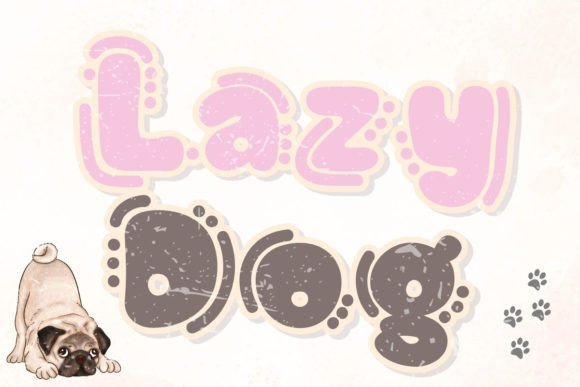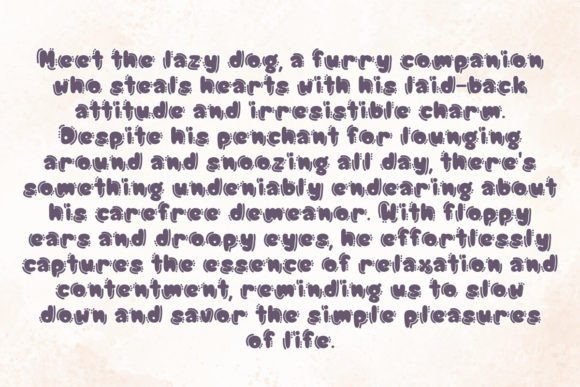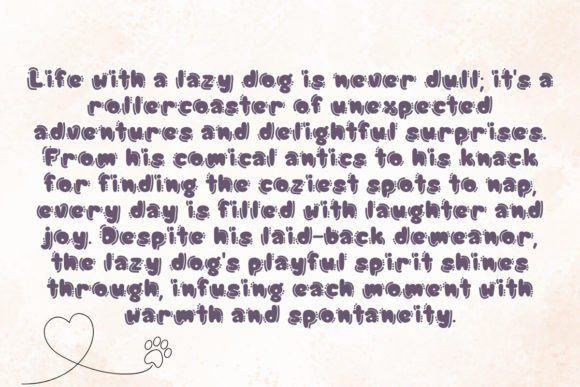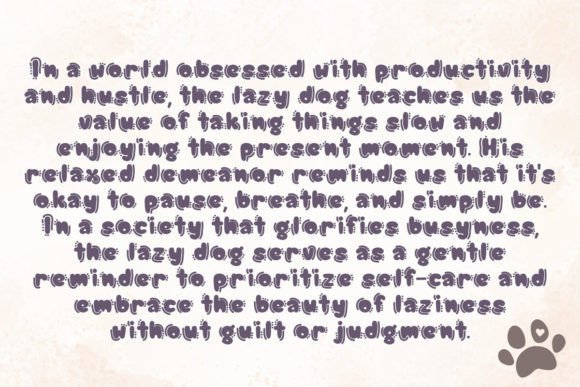
Lazy Dog Font: A Cute Handwritten Font for Playful Designs
About the Lazy Dog Font
Elevate your designs with Lazy Dog Font, a font that combines sophistication with readability. Introducing “Lazy Dog” – a charming handwritten font with its own unique personality. This font boasts whimsical curves and playful strokes, reminiscent of a lazy dog’s carefree demeanor. Each letter carries the essence of relaxation and warmth, making it perfect for adding a touch of cuteness and character to your designs.
Lazy Dog Font shines in projects requiring a friendly, approachable aesthetic. It’s ideal for headlines, short text blocks on invitations or greeting cards, and branding elements where a playful, hand-drawn feel is desired. Consider it for children’s products, pet-related businesses, or projects emphasizing warmth and comfort. However, avoid using it for body text or long paragraphs; its informal nature hinders readability in extended use. Also, steer clear of applications requiring a high degree of professionalism or formality.
Its whimsical curves are best complemented by pairing it with a clean sans-serif like Open Sans for a balanced contrast, or a more geometric sans-serif such as Montserrat for a modern feel. For a slightly more sophisticated look, consider pairing it with a classic serif font like Garamond or a script like Great Vibes, used sparingly as accents.
The font’s overall personality is undeniably playful and friendly, conveying a sense of gentle charm and approachability.